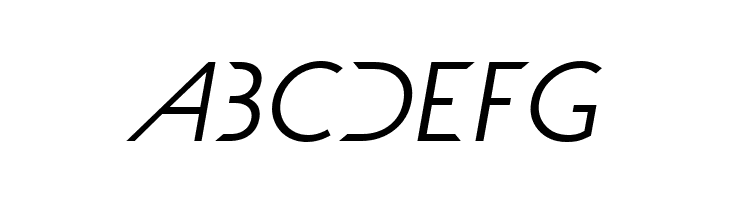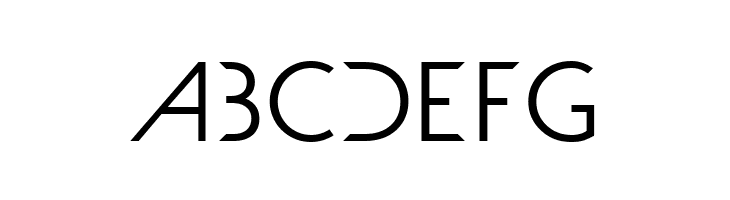
EpicFusion Font
Jeronimo - Jeroen Kant
A modern sans-serif font with clean lines and geometric structure.
EpicFusion-Italic Font
Jeronimo - Jeroen Kant
A sleek, modern italic font with smooth curves and clean lines.